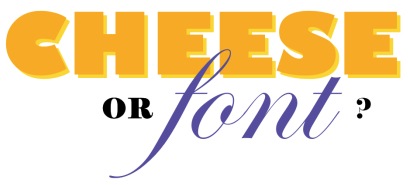
Just look at this sample of Creighton from ITC. Bold and strong but with very rounded corners which makes it softer and more friendly to use in menus, travel related material or packaging to name a few as a suggestion. Continue reading…